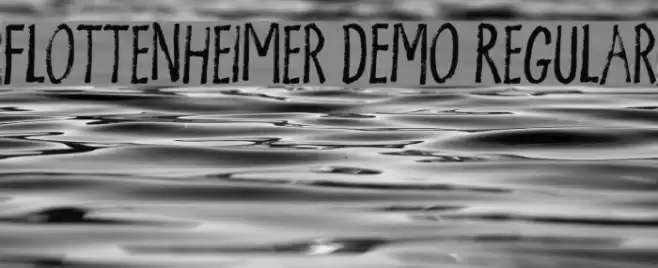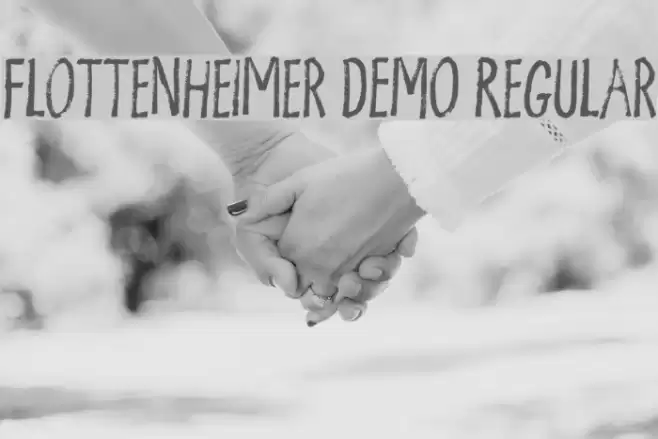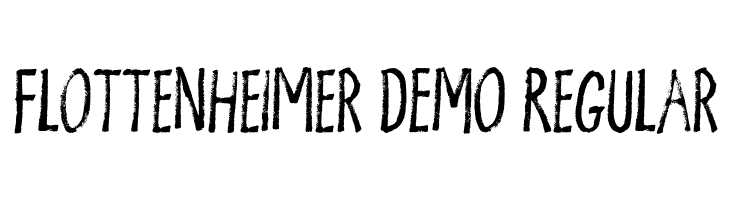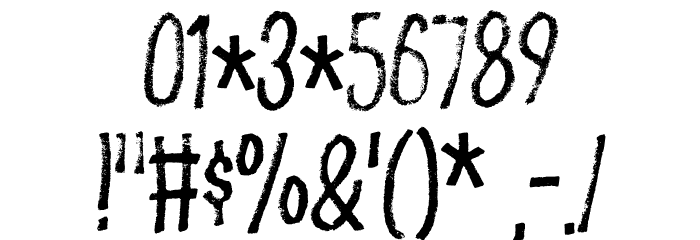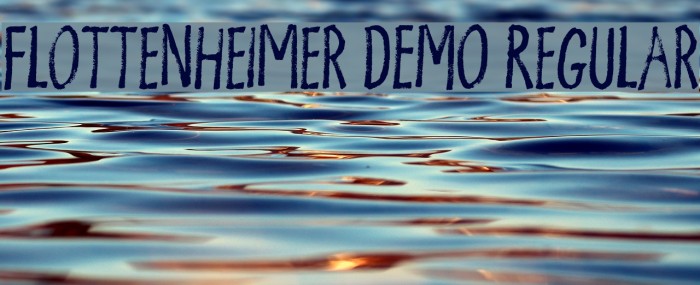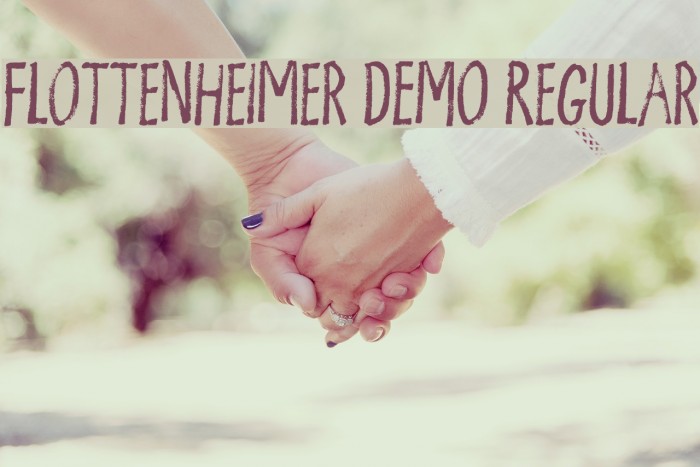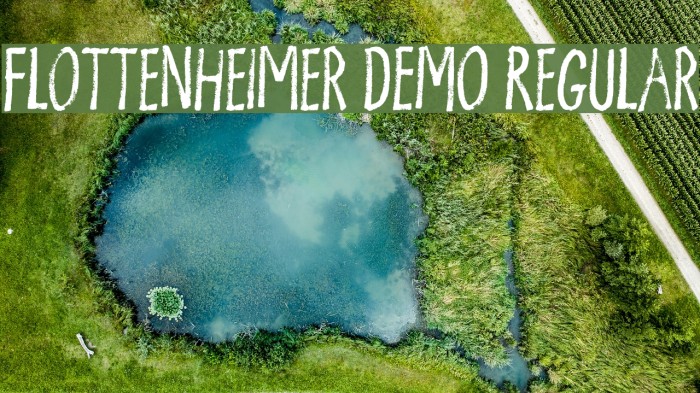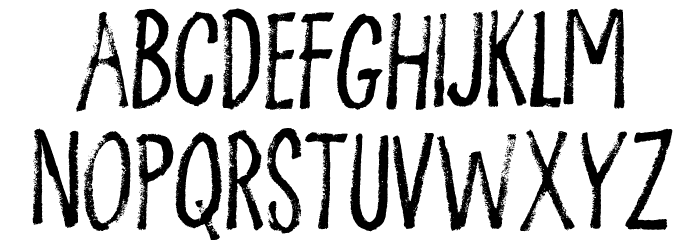
Flottenheimer DEMO Regular Font
Flottenheimer DEMO Regular Description
This font features a bold and expressive style with a hand-drawn appearance. The characters are slightly irregular, giving it a casual and artistic feel. The texture is rough, resembling a chalk or crayon effect, which adds to its unique charm. The uppercase letters are tall and narrow, while the lowercase letters maintain a consistent height, providing a cohesive look. Numbers and special characters are included, matching the overall aesthetic. This font is ideal for projects that require a creative and informal touch.
A bold, hand-drawn font with a rough, artistic texture from Handwritten fonts.
- Proposed Projects: Ideal for posters, artistic projects, branding, and creative advertisements.
- Overall Style: Artistic, Casual
- Use Case: Headlines, Posters, Branding